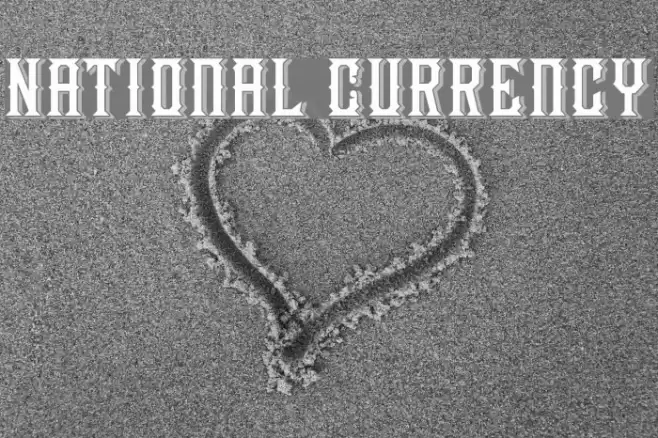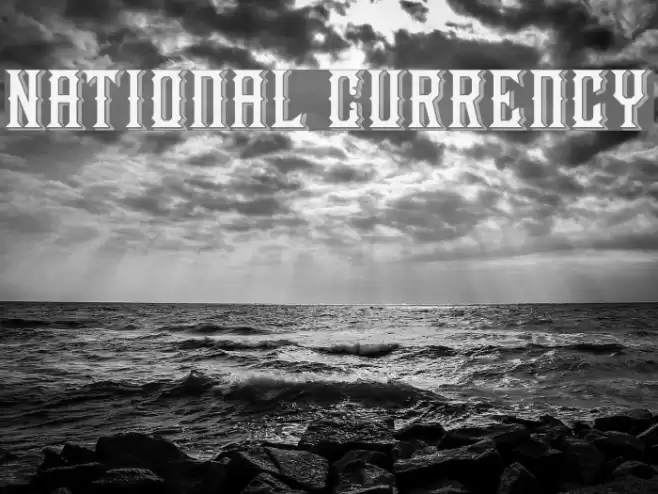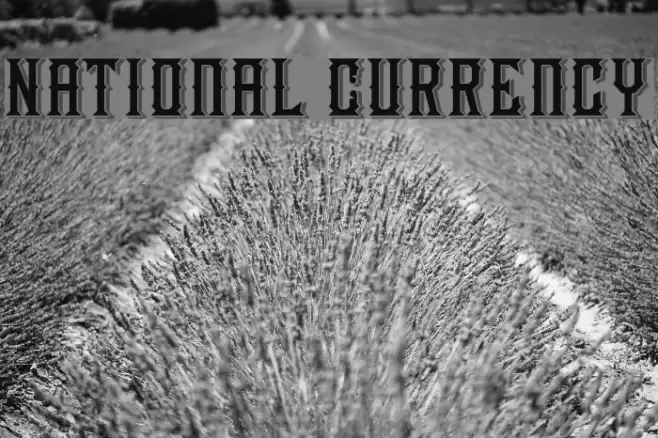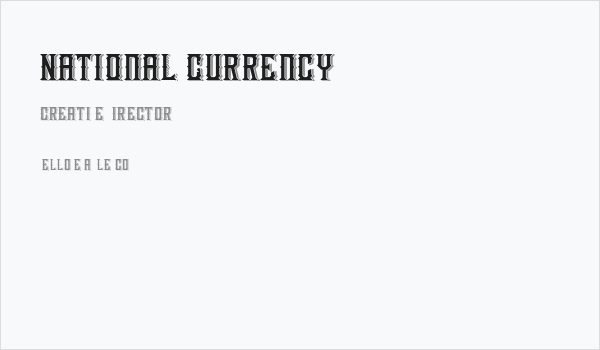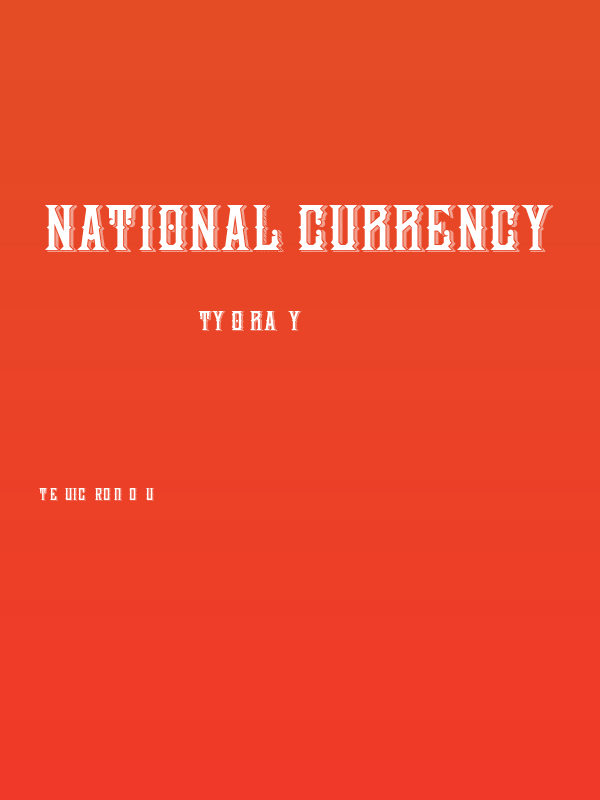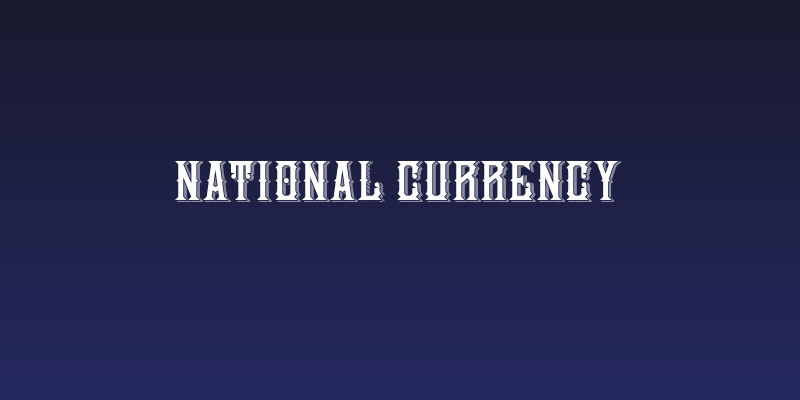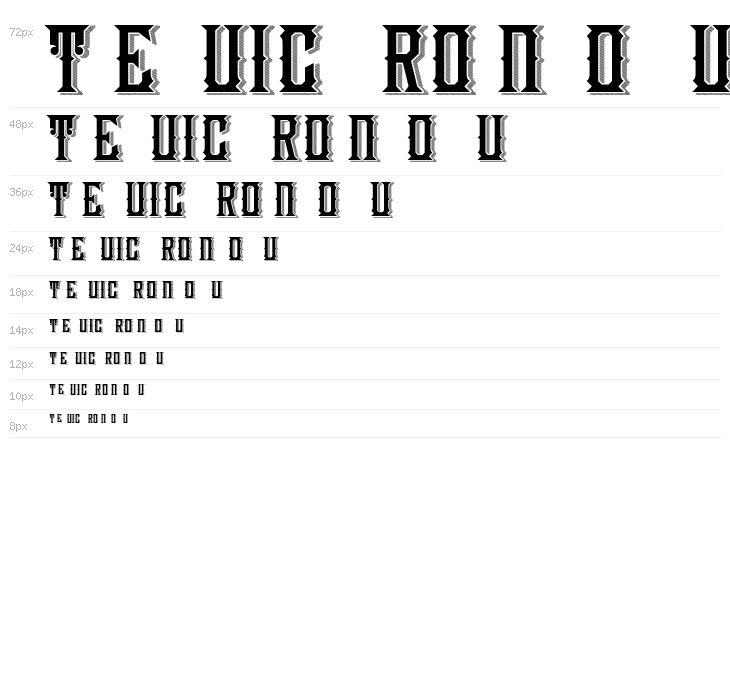
National Currency Font
National Currency Description
This font features a bold and decorative style with a distinct three-dimensional effect. The characters are designed with sharp, angular edges and intricate detailing, giving them a striking and impactful appearance. The shadowing effect adds depth, enhancing the visual interest. The uppercase letters are particularly ornate, with embellishments that make them stand out. The lowercase letters maintain the same decorative style, ensuring consistency across the typeface. This font is ideal for creating eye-catching headlines or titles that require a strong visual presence.
| Proposed Projects | Ideal for posters, logos, branding, and any design project requiring a bold, eye-catching typeface. |